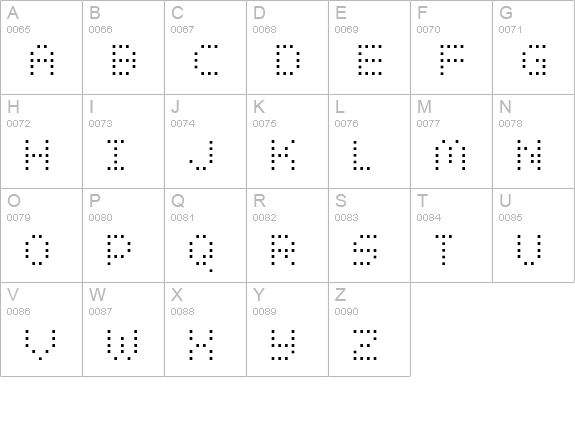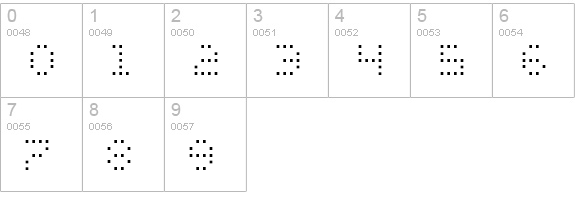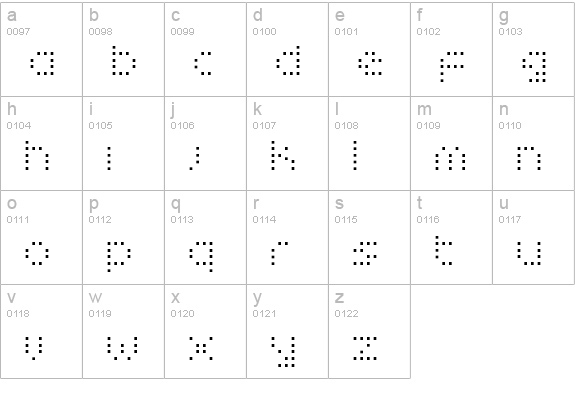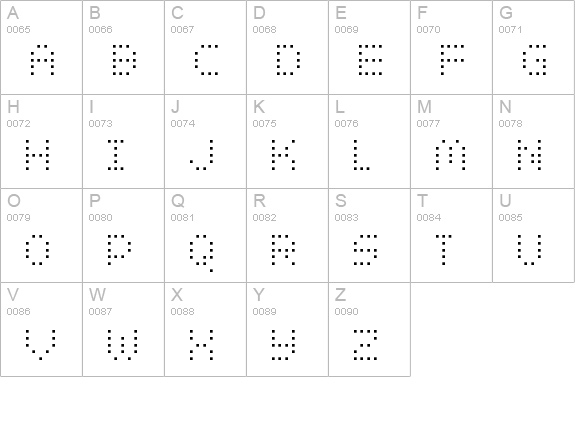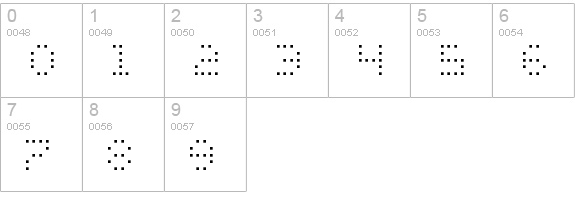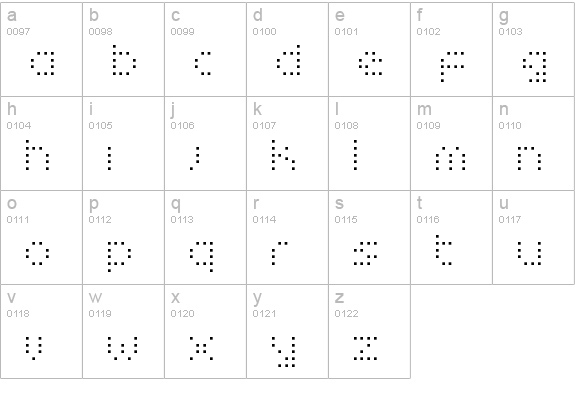
Zado Font Details
Zado font is a modern and stylish typeface that exudes sophistication and elegance. With its sleek lines and unique design, Zado is perfect for a wide range of projects, from branding to graphic design. This versatile font is sure to make your text stand out and capture attention. What's even better is that Zado font is free to download at FontsMarket.com. This means you can easily access this stunning typeface and use it in your projects without any cost. Don't miss out on the opportunity to enhance your designs with the exquisite Zado font. Download it today and elevate your creativity to new heights.